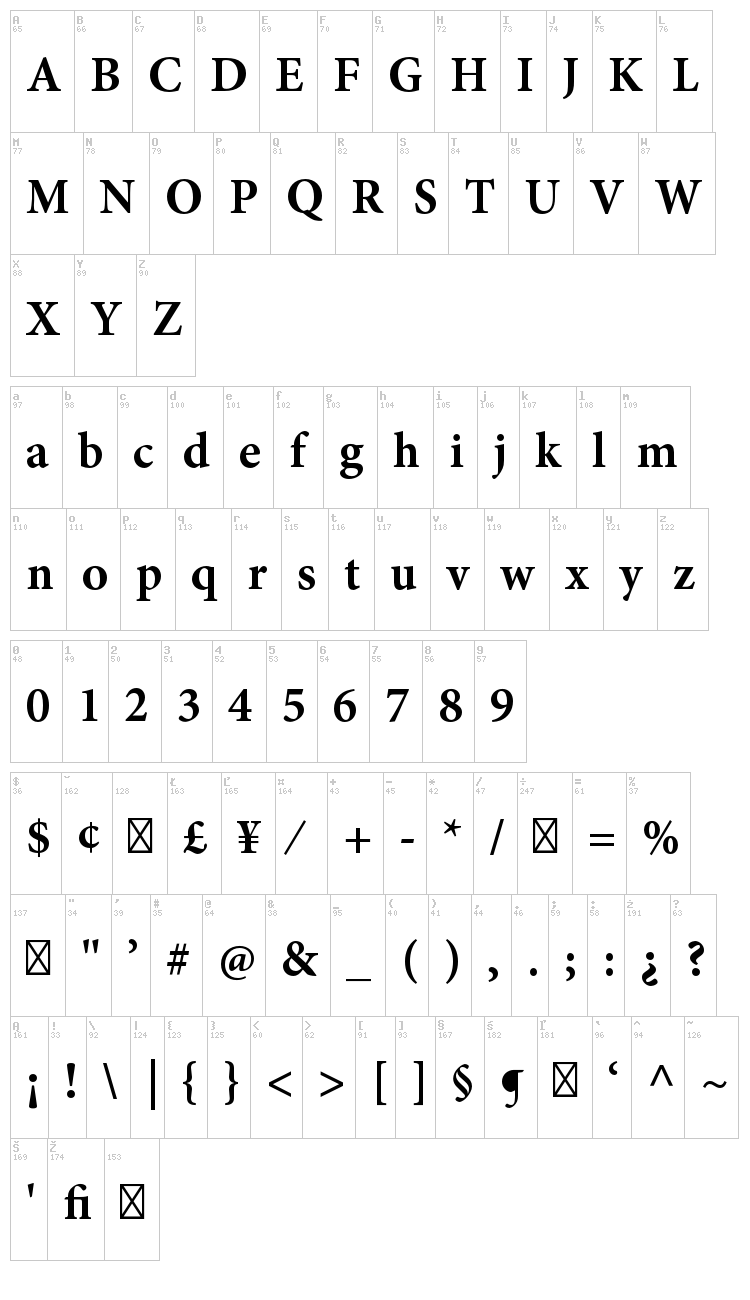
Font Minion Pro
Font Minion Pro - Web showing results for ‘minion pro’ families Web the full minion pro family contains three weights and two widths, each with optical size variants, and each supporting a full.